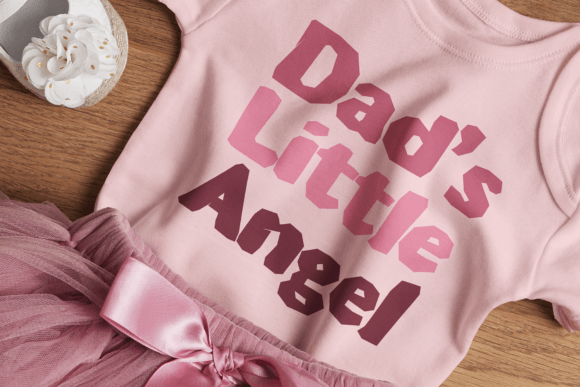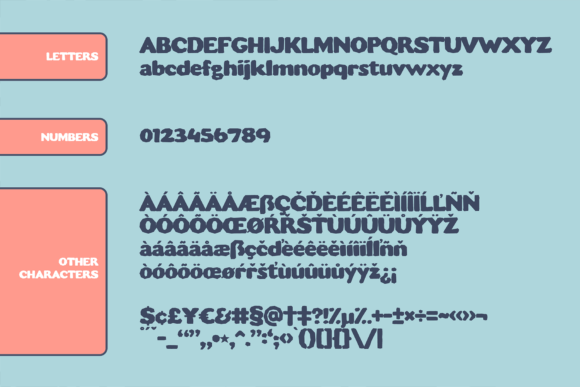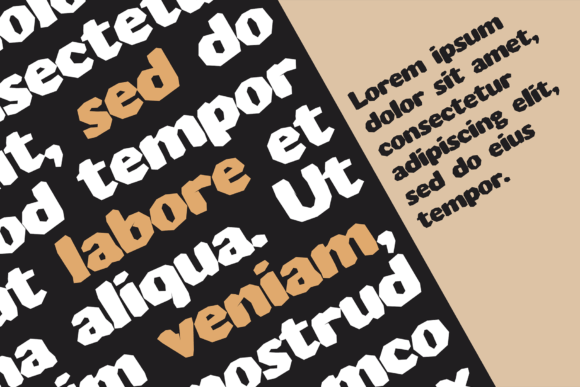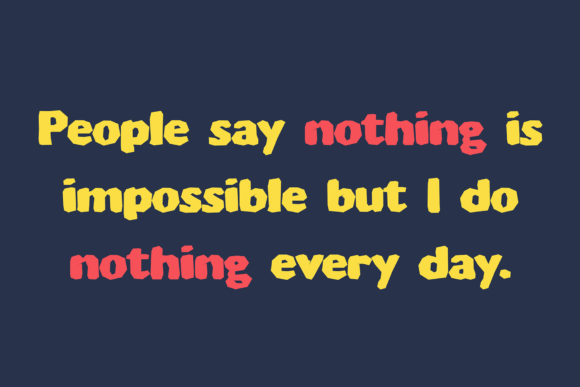
Introduction to Slice Me Nice Font Font
Fonts play a crucial role in design, and the Slice Me Nice Font font is a typeface that brings both character and versatility to any project. Whether you’re working on a branding project, a website, or a print design, the Slice Me Nice Font font offers a unique style that can elevate your work.
Slice Me Nice is a playful childish, bold, chunky cutout display font.
It is great for headlines, quotes, banners, billboards, logo designs, posters, flyers, crafts, art projects, advertising, etc .
Key Features of Slice Me Nice Font Font
Why Choose Slice Me Nice Font Font?
The Slice Me Nice Font font is more than just a typeface – it’s a design tool that helps you communicate your message with style and clarity. Its unique character set and versatile design make it suitable for a wide range of applications, from elegant invitations to bold headlines.
With its carefully crafted letterforms and balanced proportions, the Slice Me Nice Font font ensures readability and visual appeal across all mediums.
What makes Slice Me Nice Font font special?
The Slice Me Nice Font font stands out with its unique design, exceptional readability, and versatility across various design applications.